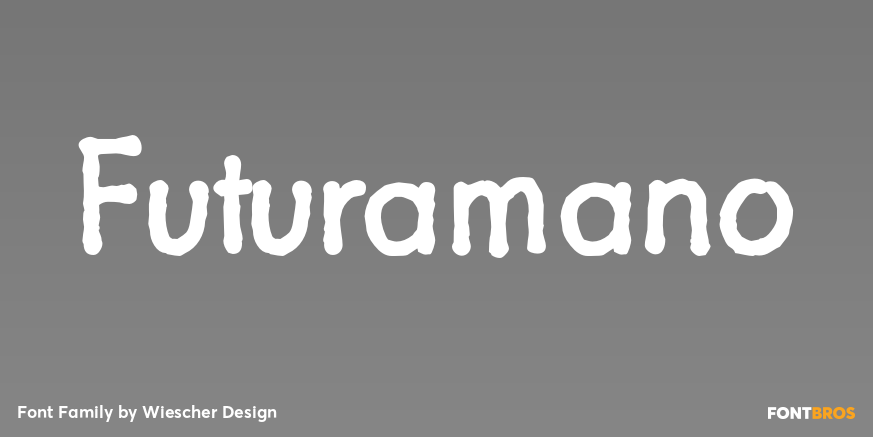
Futuramano
About Futuramano
Futuramano was the kind of typeface we scribbled in those old days, when I was an art-director in advertising agencies. We used it to simulate the headlines and the subheads, so the client could read what the copywriters had in mind. As Futura was the…